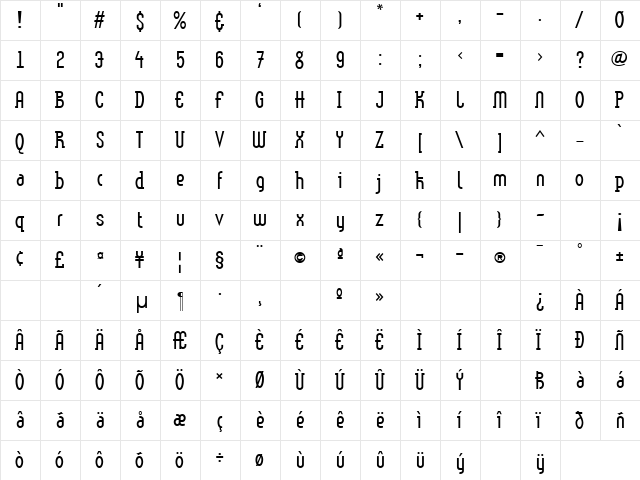
LTMethod Light Regular
Design Context for LTMethod Light Typeface
LTMethod Light takes a measured approach to typography — its balanced proportions and neutral character make it a reliable workhorse for both digital and print work. The delicate stroke weight brings airiness and refinement to layouts.